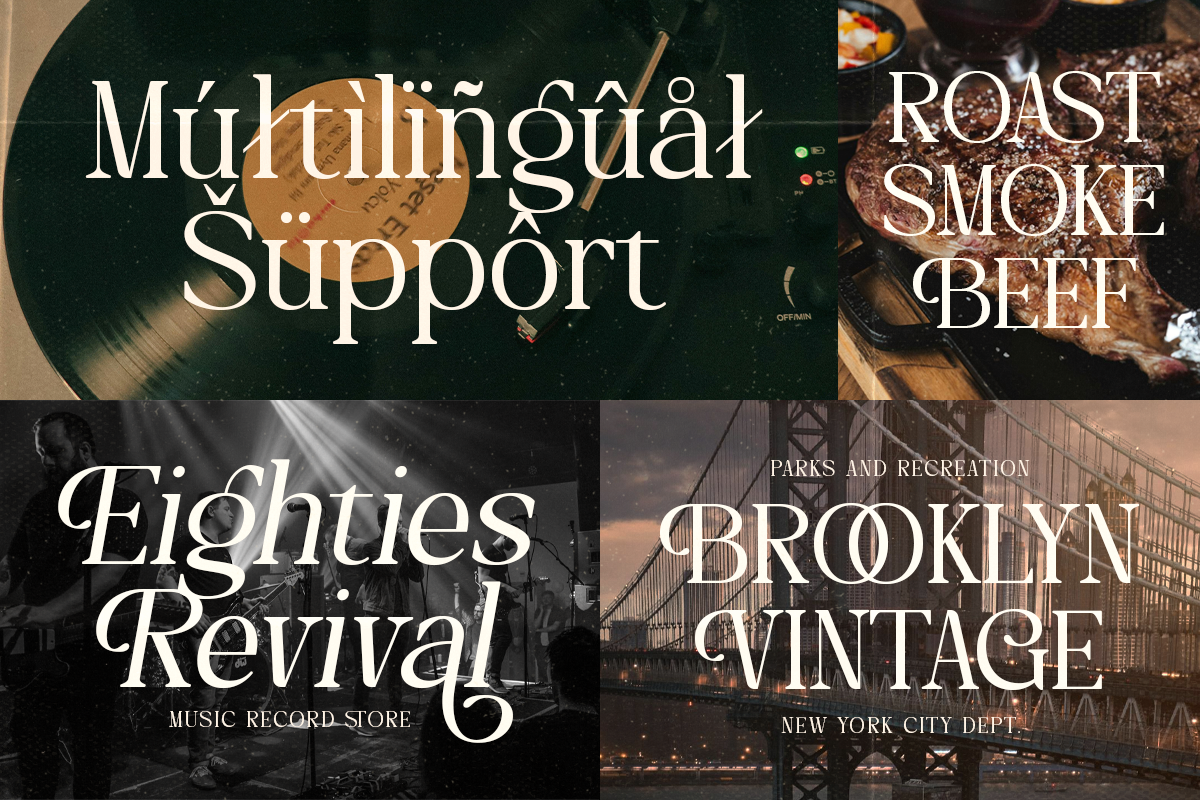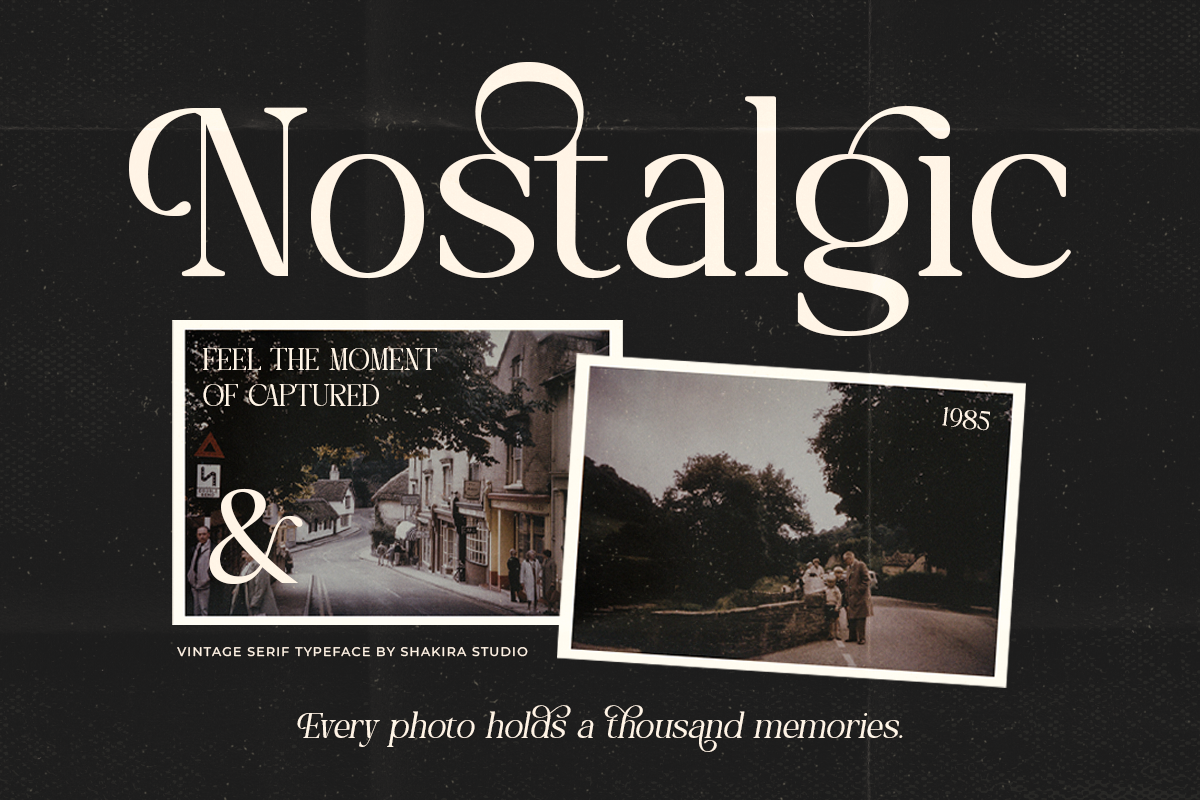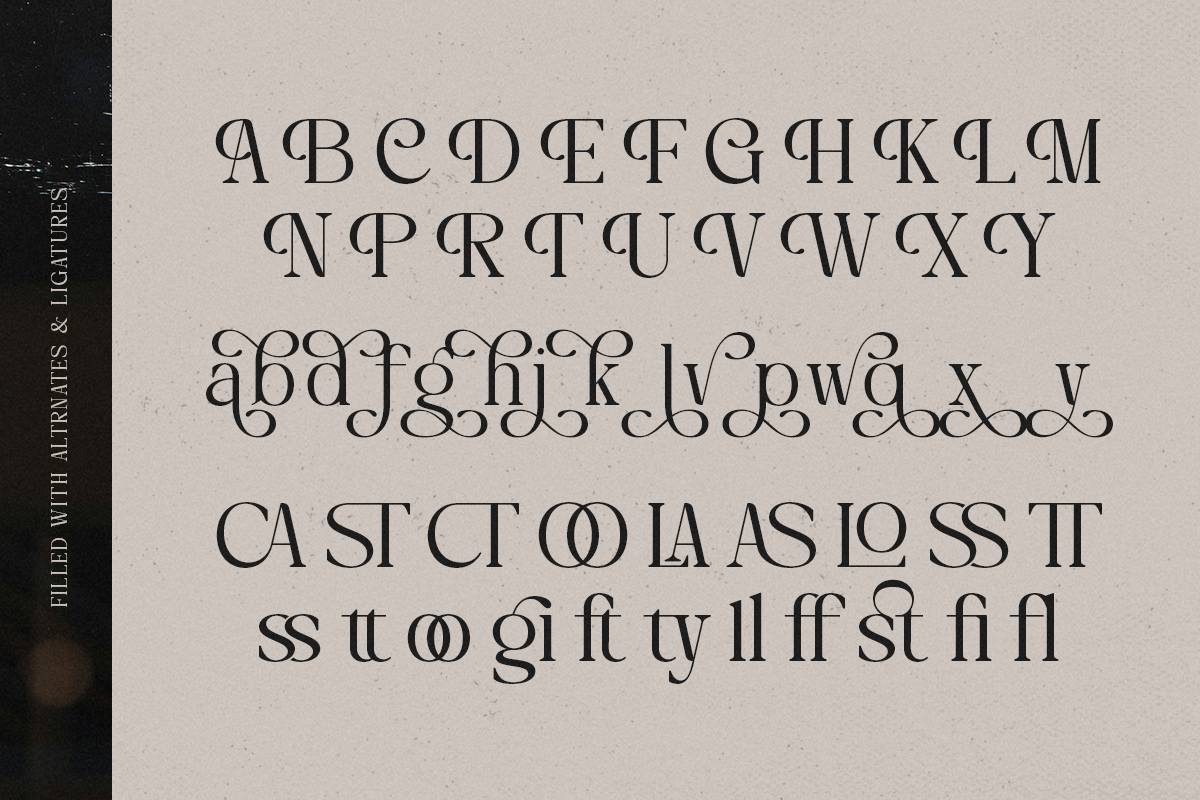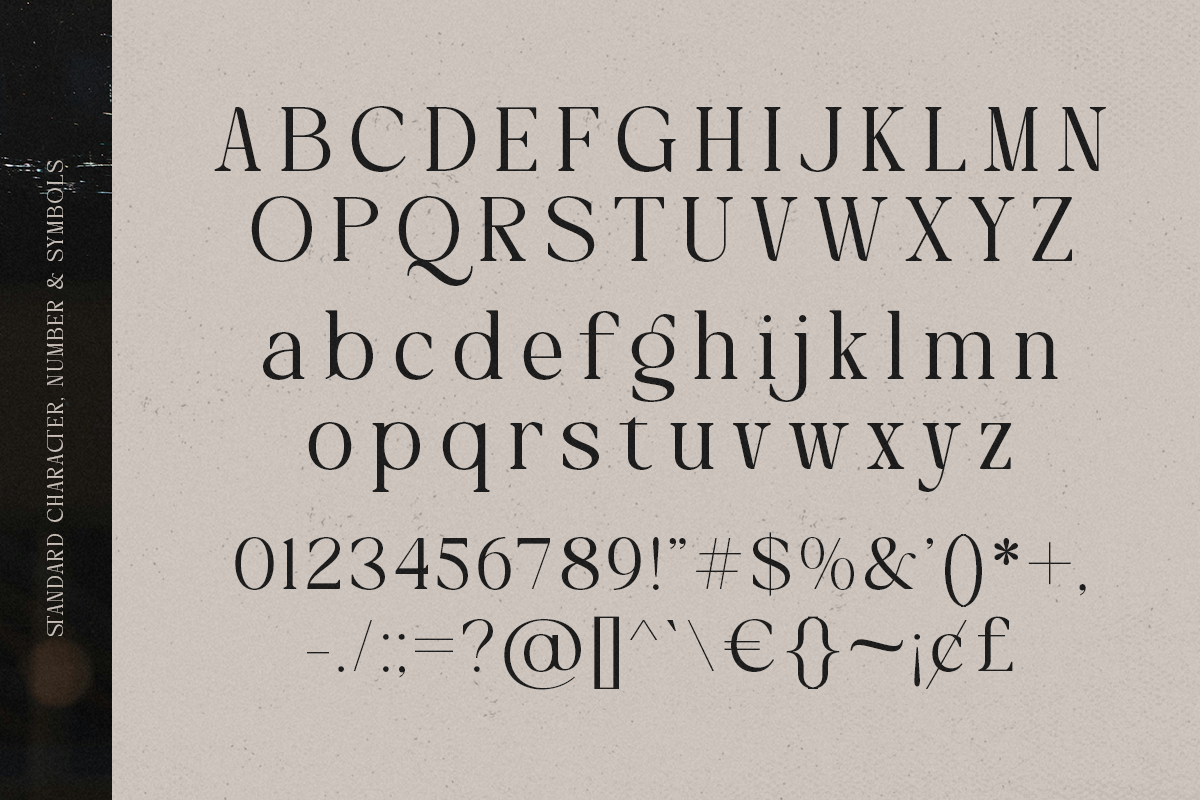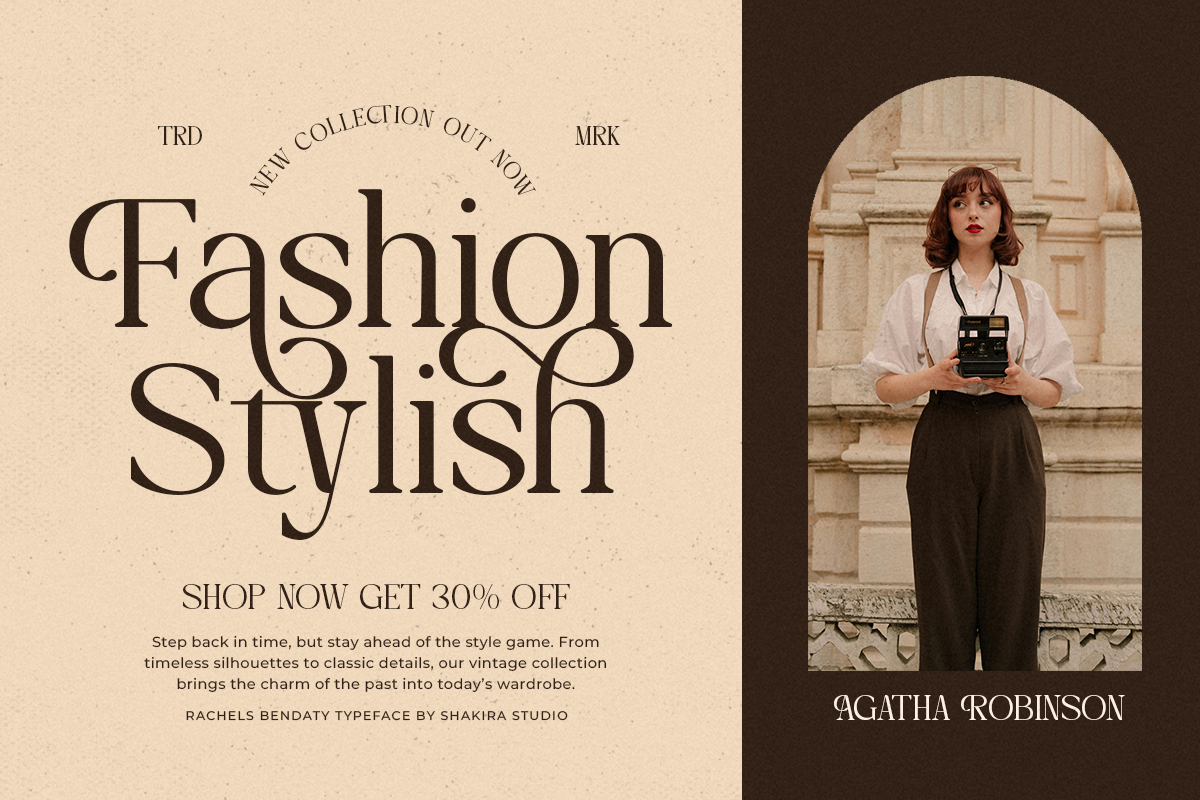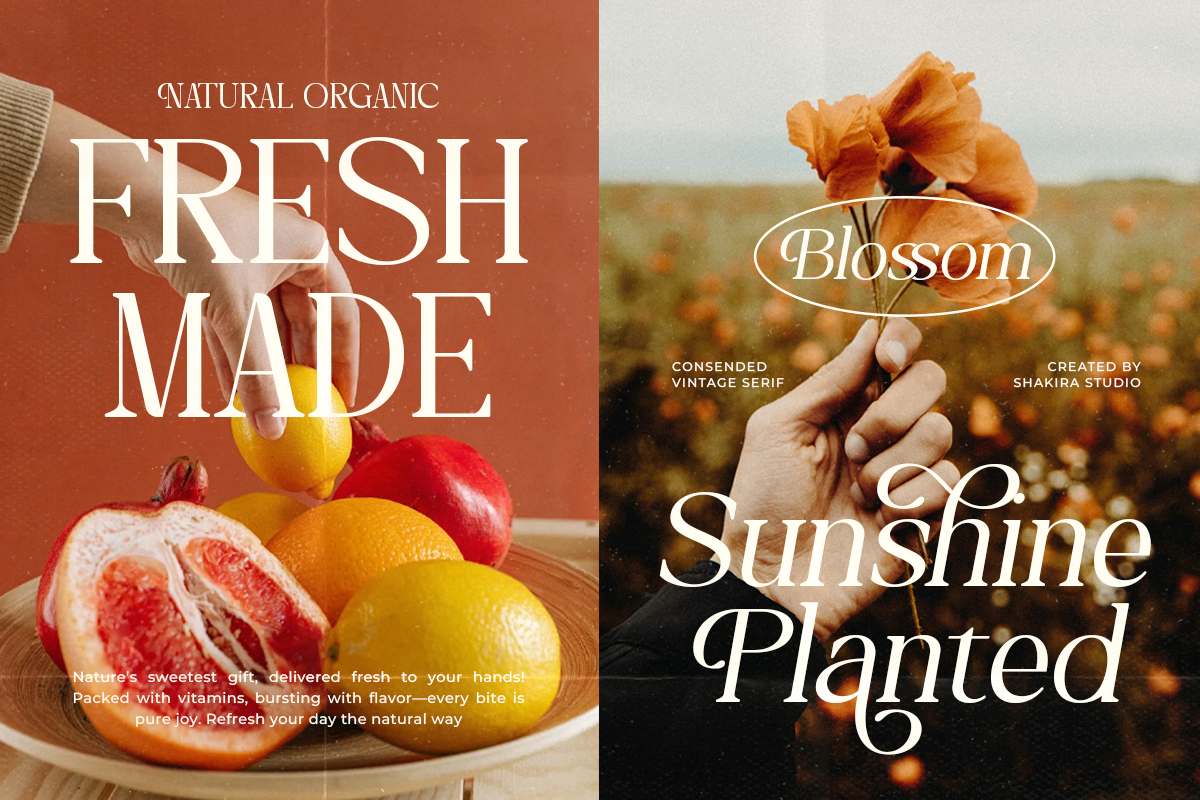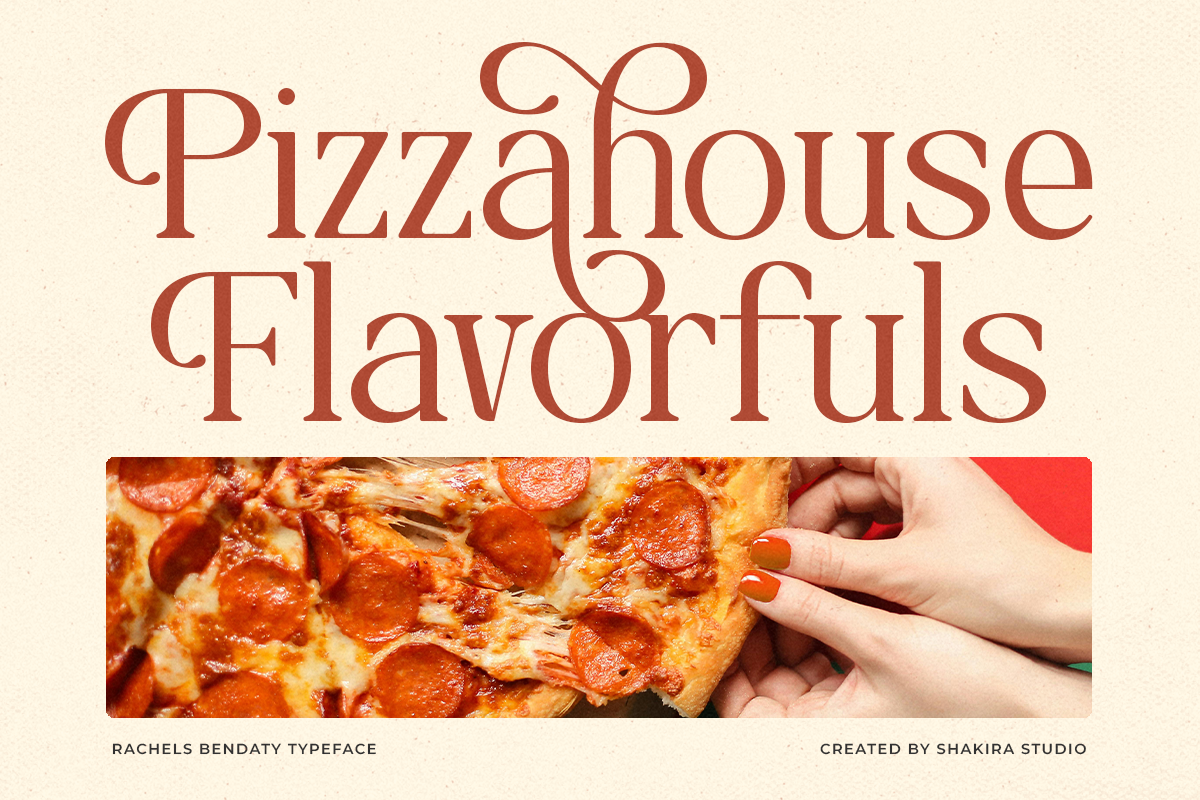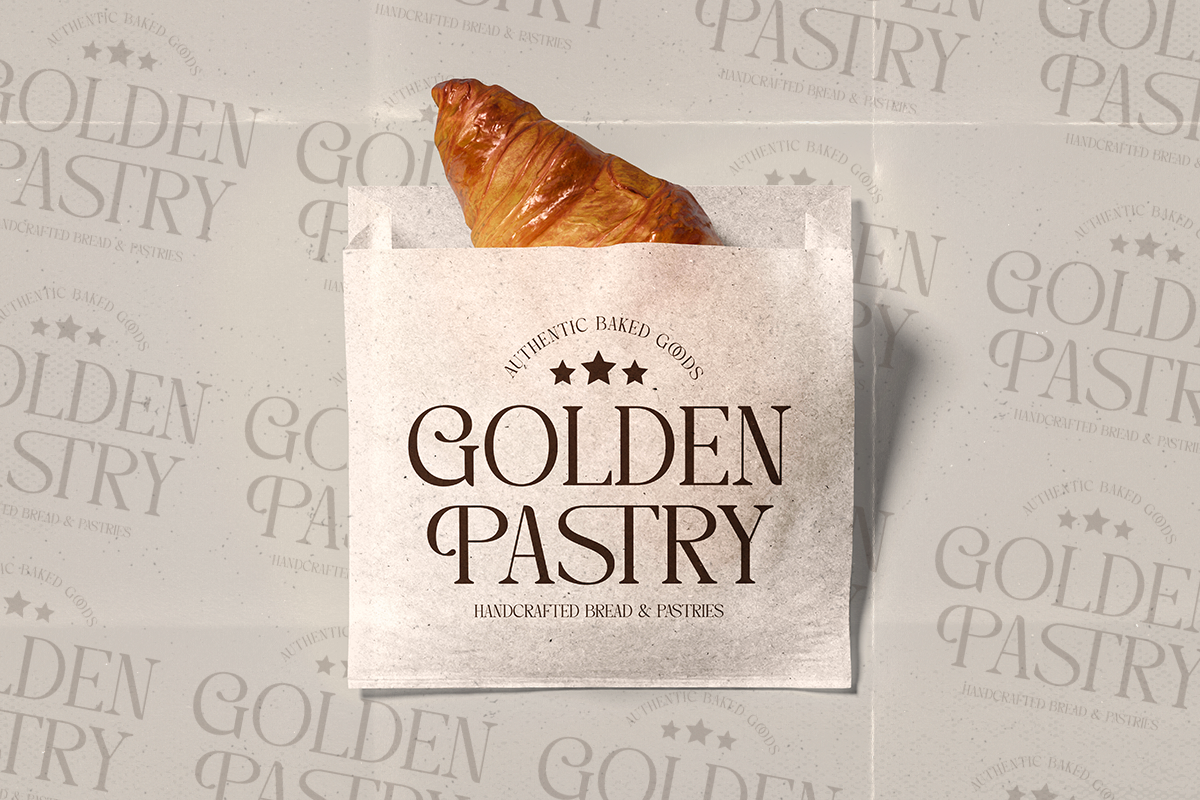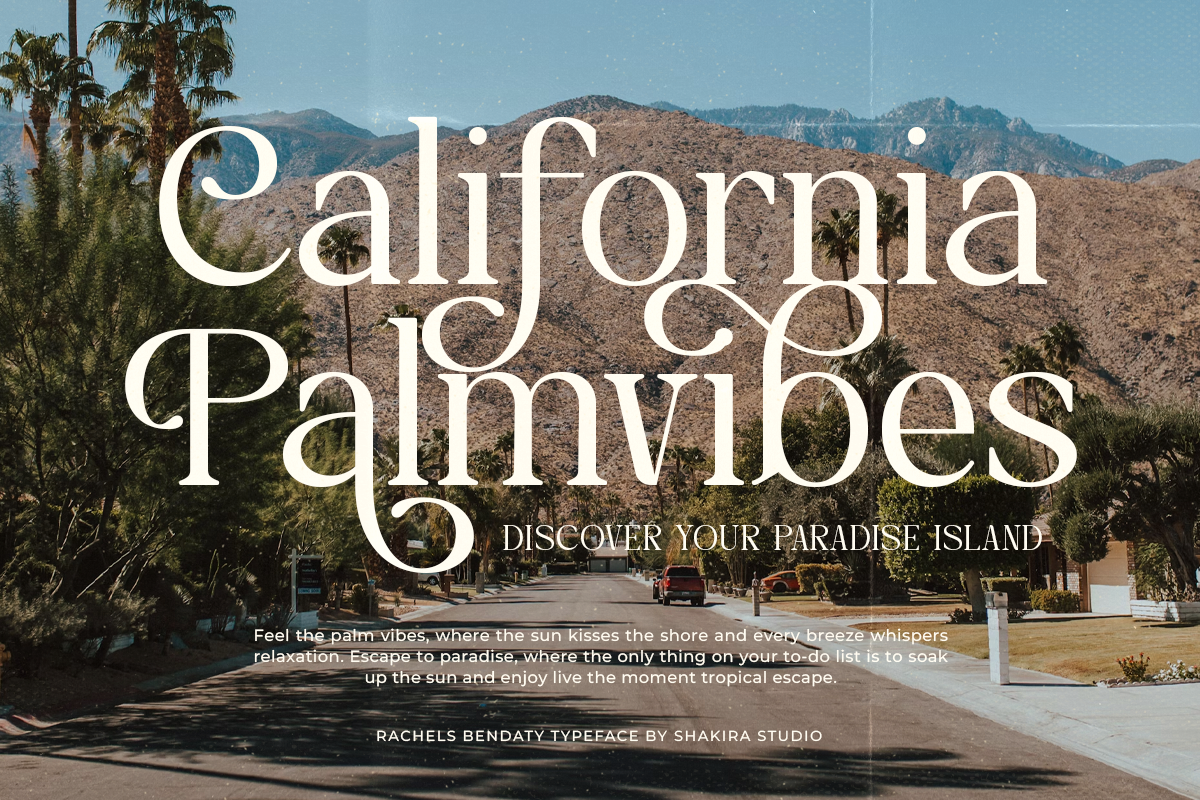
Rachels Bendaty - Retro Serif
Rachels Bendaty is a retro display serif font available in regular and italic styles. It features a stylish and trendy design with elegant alternates and ligatures, perfect for branding, editorial projects, social media, invitations, and more. Elevate your designs with its timeless charm and modern sophistication.
- Regular & Italic
- All Multilingual symbol
- Opentype features ( ligature, alternate )
Multilingual character supports : (Afrikaans, Albanian, Catalan, Croatian, Czech, Danish, Dutch, English, Estonian, Finnish, French, German, Hungarian, Icelandic, Italian, Lithuanian, Maltese, Norwegian, Polish, Portuguese, Slovenian, Spanish, Swedish, Turkish, Zulu)